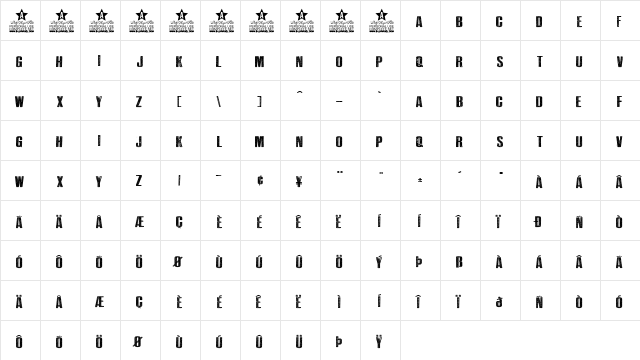
NO STRESS PERSONAL USE Regular Font Preview
NO STRESS PERSONAL USE Regular
| Foundry | Billy Argel |
| Designer | Billy Argel |
Design Context for NO STRESS PERSONAL USE Typeface
NO STRESS PERSONAL USE offers clean, dependable letterforms without strong stylistic allegiance, making it a practical choice for designers who need flexibility.